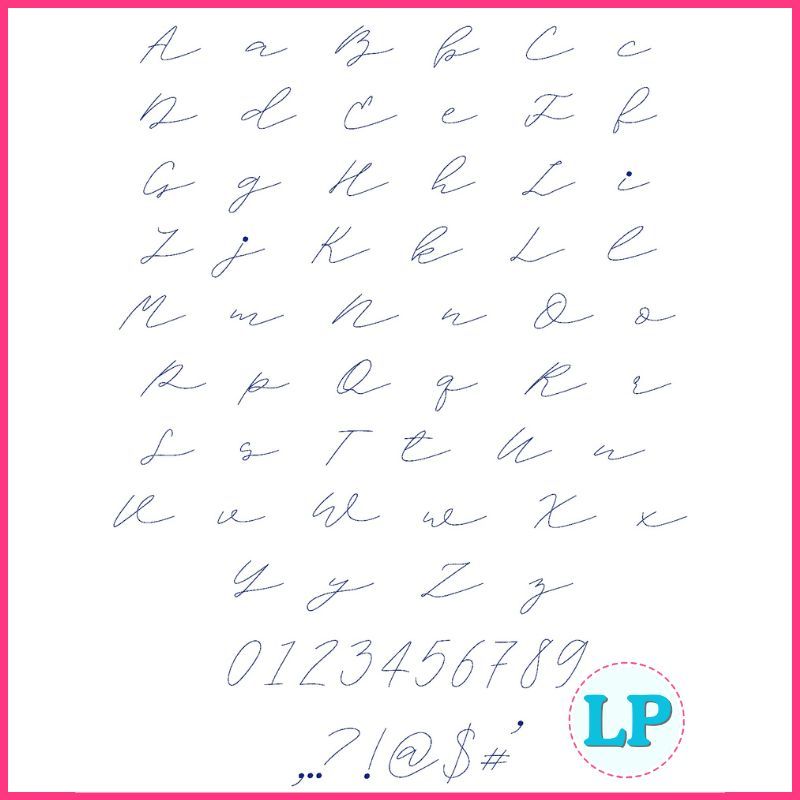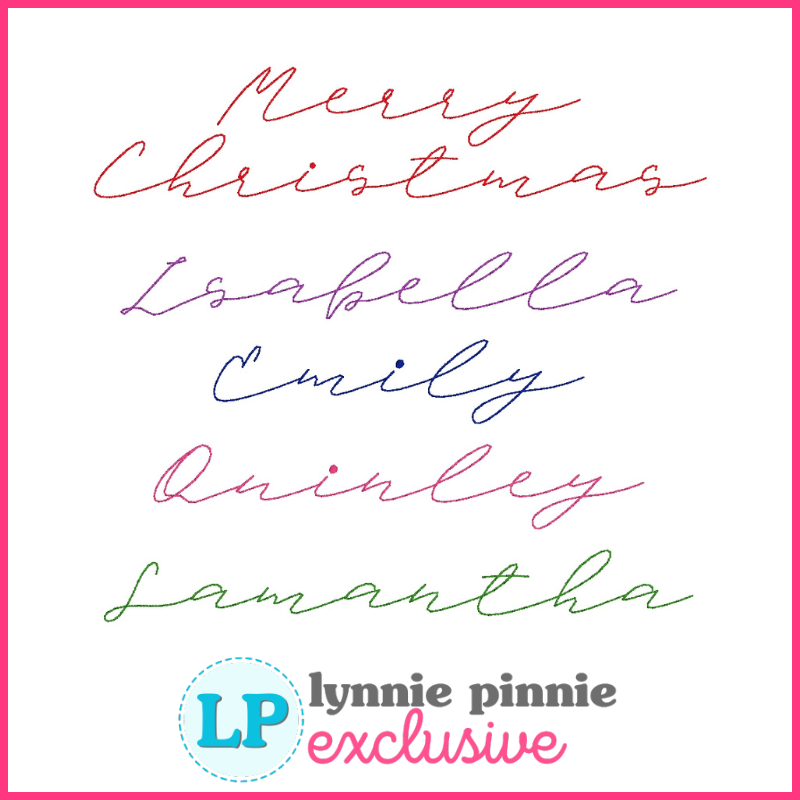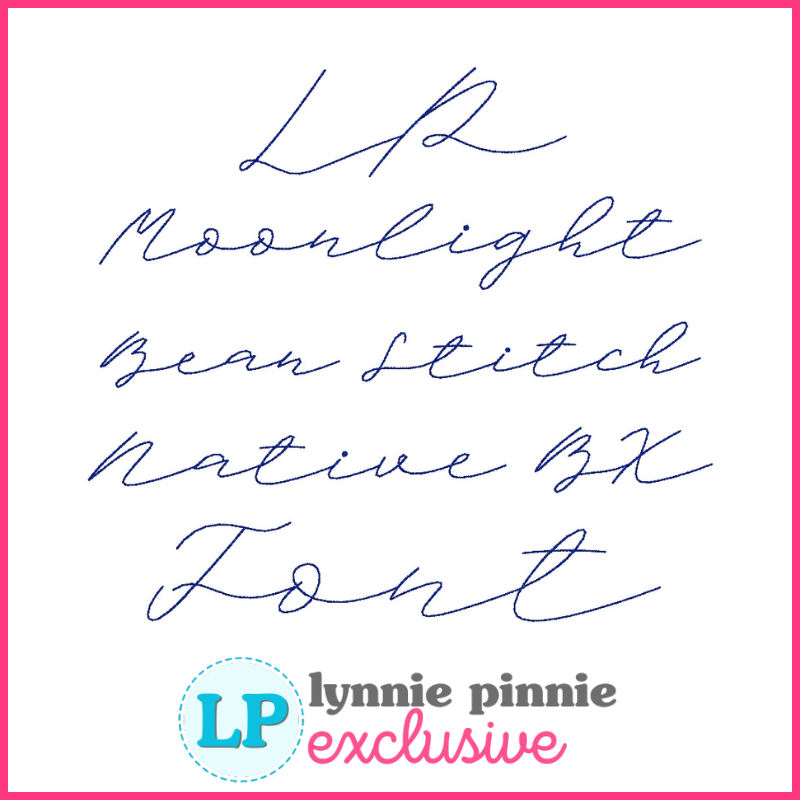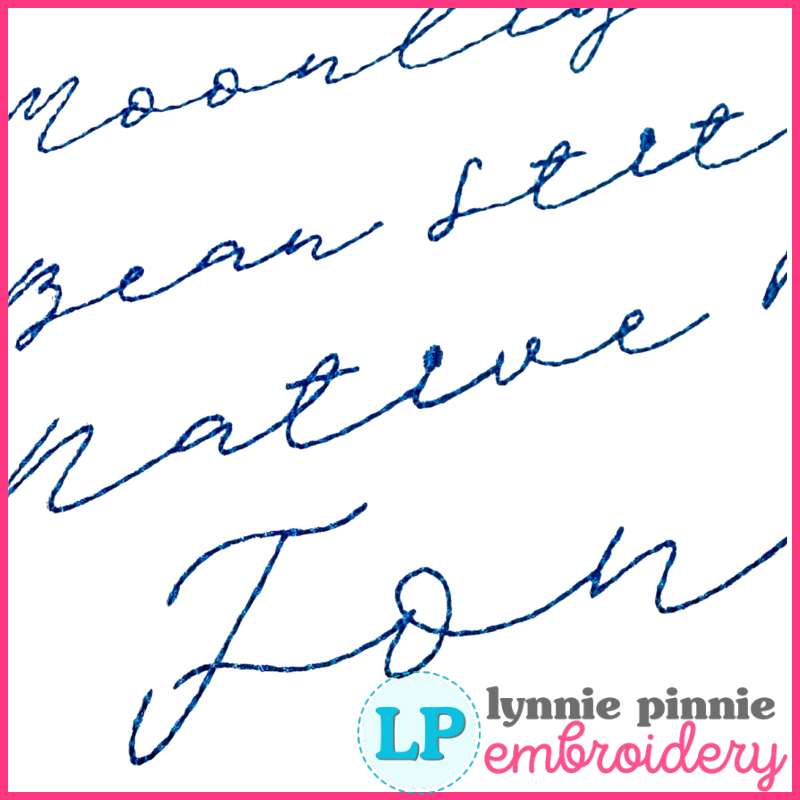
Moonlight Script is a smooth, handwritten-style bean stitch machine embroidery font that includes uppercase letters, lowercase letters, numbers, and punctuation. Its flowing, modern script style is perfect for names, monograms, children’s items, boutique apparel, gifts, labels, and personalized projects.